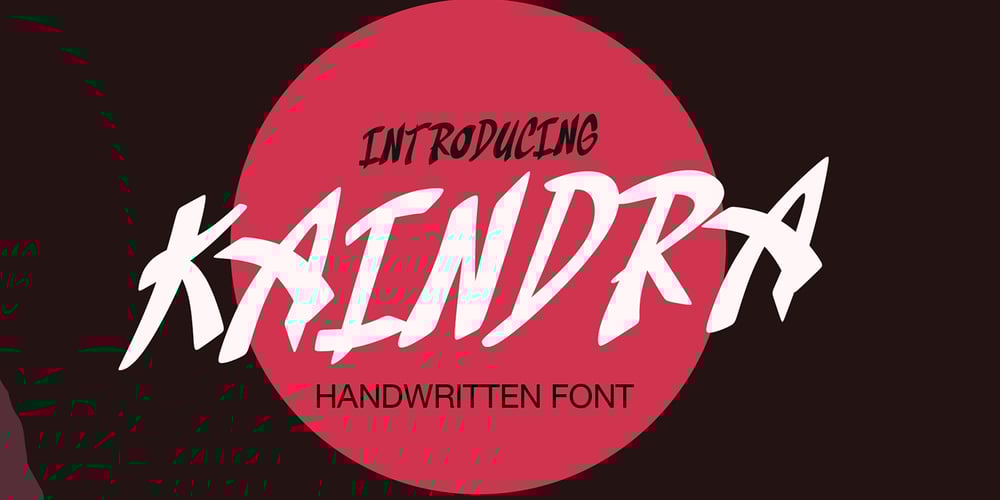
Kaindra Font Family was designed by Sipanji and published by Sipanji21. Kaindra contains 1 styles and family package options. Kaindra is a Theme display font that has a Japanese Ninja Looks. Kaindra is a good font to use for various graphic designs, such as poster titles, banners, advertisements, logotypes, and is good for combining various types of icons. This font is also good for packaging, crafting, children’s and adult clothing. apply this font for your various designs to make it more powerful